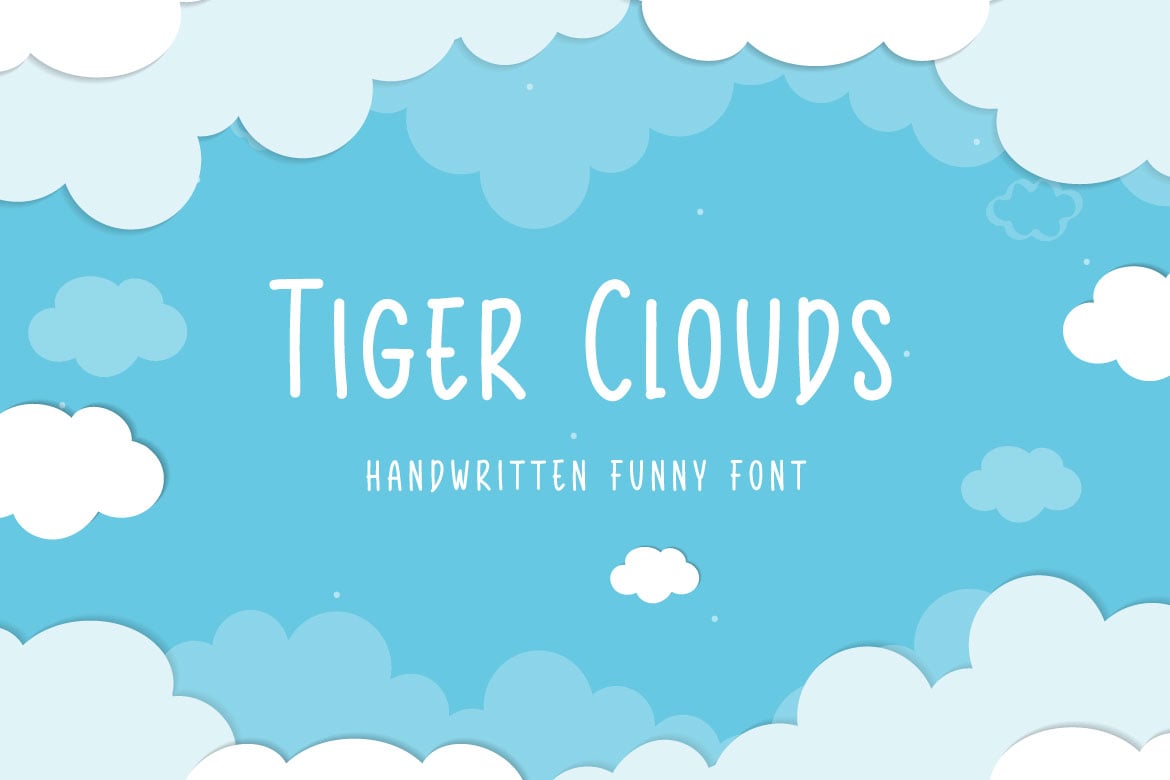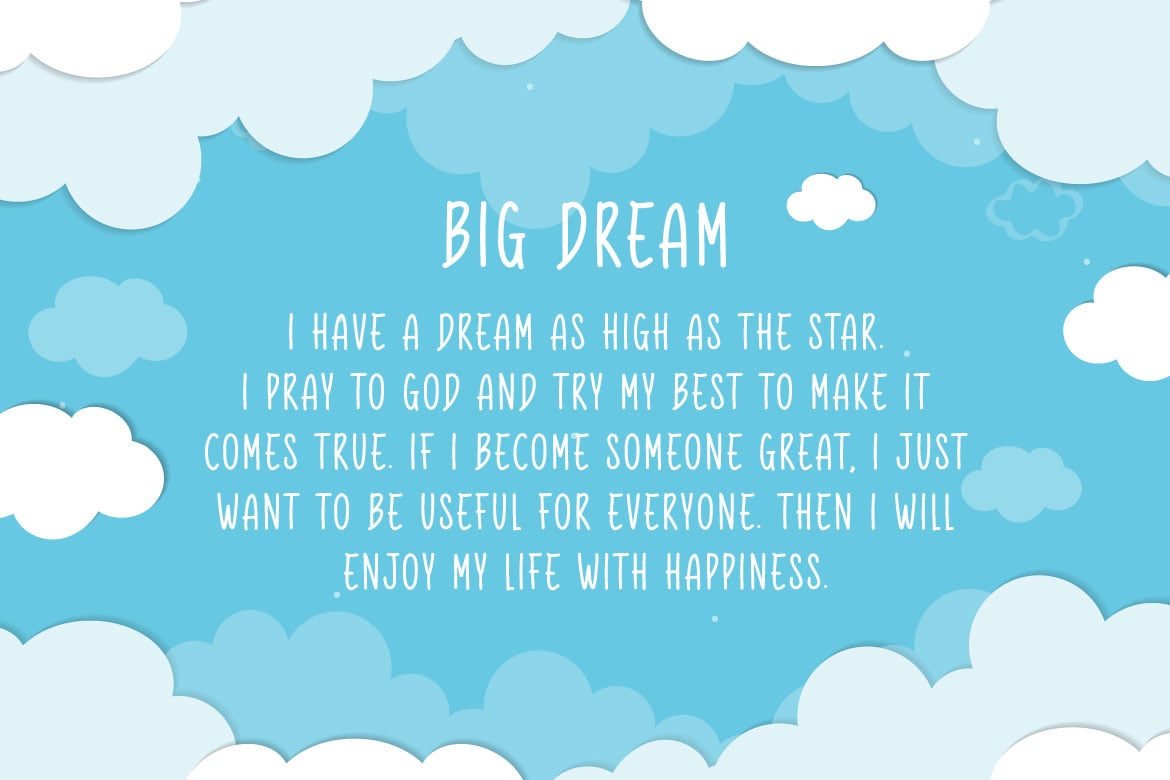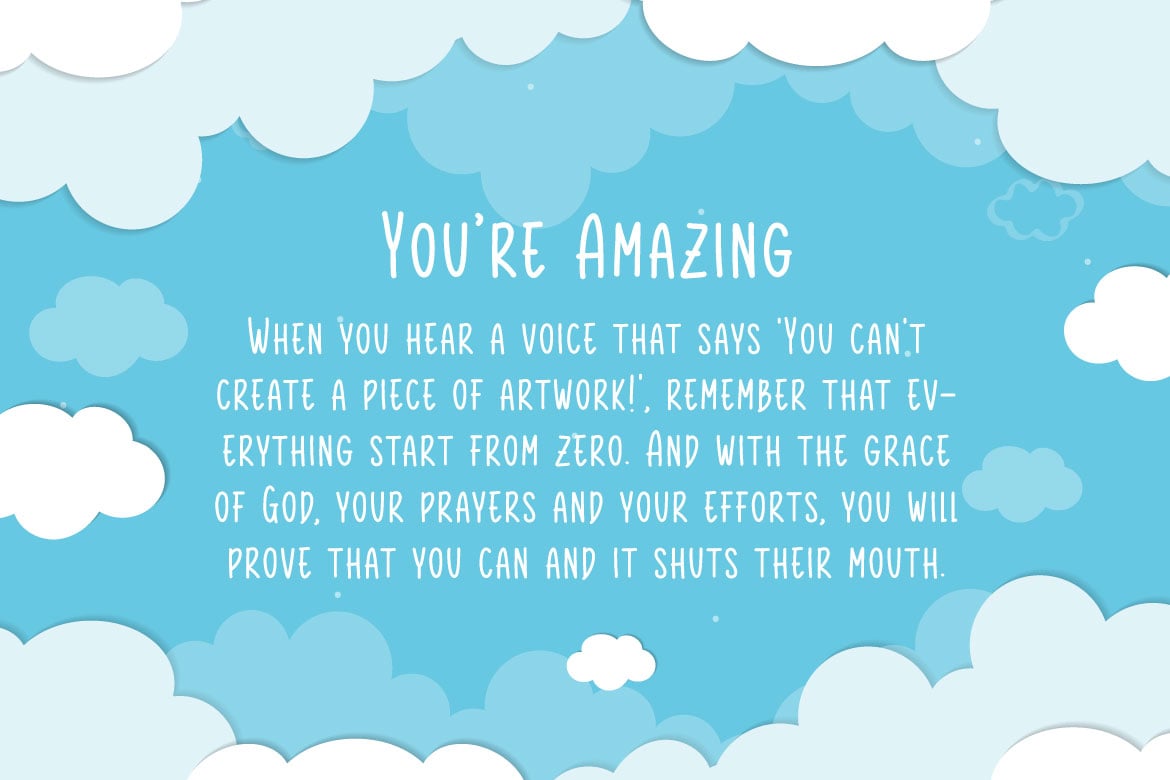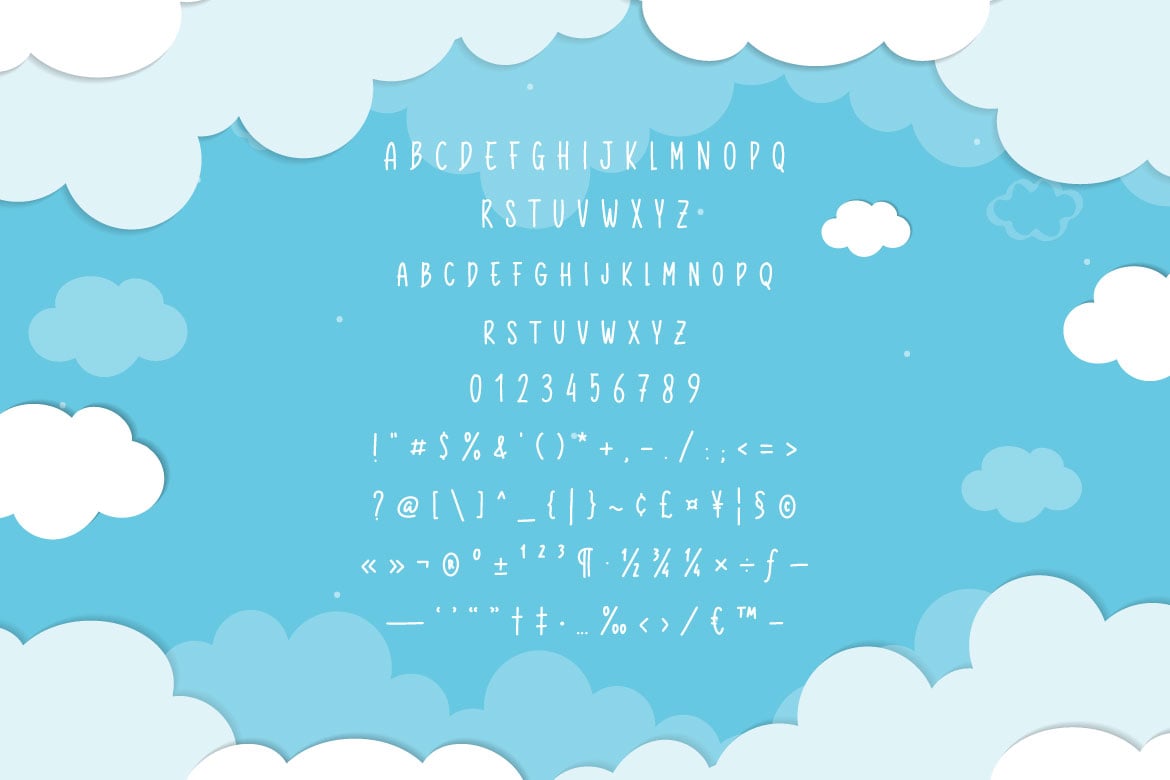
Tiger Clouds – Handwritten Funny Font
Hello! Tiger Clouds is a fun playful handwritten font.
Tiger Clouds can be used in any works such as comic book, poster, school, flyer, book title, advertisement, social media content, logo and many more.